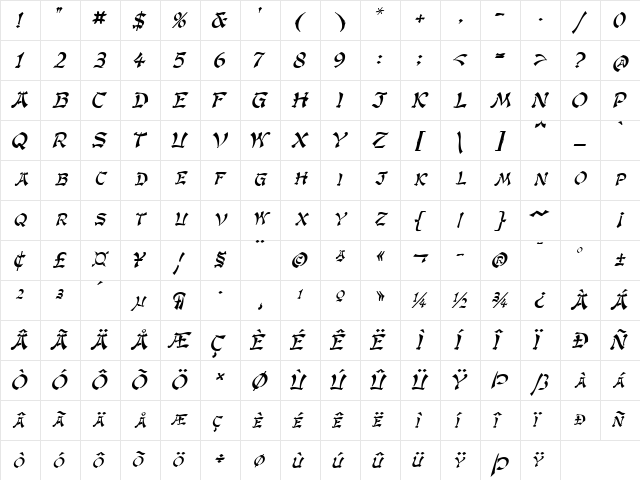
MarcoPoloSCapsSSK is a composed and adaptable typeface that performs quietly and consistently across a wide range of design contexts. The slanted form adds forward momentum and visual energy.
Pro Tip: Use MarcoPoloSCapsSSK for emphasis, pull quotes, and subheadings where its slanted energy can add rhythm to the layout.